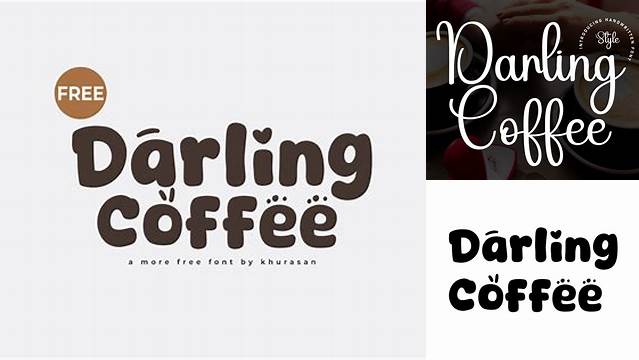
Darling Coffee Font: Free Download For Your Designs
Hey guys! Are you looking to add a touch of warmth and charm to your design projects? Well, you've come to the right place! We're diving deep into the world of the Darling Coffee font, a delightful typeface that can bring a cozy and inviting feel to just about anything. Whether you're designing a logo for a coffee shop, creating eye-catching social media graphics, or even crafting personalized invitations, this font might just be the secret ingredient you've been searching for. So, grab your favorite mug of coffee, get comfy, and let's explore everything this awesome font has to offer!
Darling Coffee Font: What Makes It Special?
The Darling Coffee font is more than just a set of characters; it's a mood, a feeling, a vibe! Its playful curves and slightly imperfect lines give it a handmade, authentic feel that's perfect for projects that need a personal touch. Think about how a handwritten note makes you feel versus a typed email. That's the kind of difference this font can make! It's got that certain je ne sais quoi that elevates designs from ordinary to extraordinary. Plus, the fact that you can find it for free download? Well, that's just the cherry on top!
Using Darling Coffee Font in Your Designs
So, you've downloaded the Darling Coffee font, now what? The fun part – putting it to use! This font is incredibly versatile, but it shines especially in projects where you want to evoke a sense of warmth, comfort, and authenticity. Imagine using it for the logo of a local bakery, the menu of a cozy café, or even the branding of a handmade crafts business. The possibilities are endless! But remember, even the most beautiful font needs to be used thoughtfully. Pay attention to things like font size, spacing, and color to make sure your message is clear and impactful.
Darling Coffee Font Alternatives
While the Darling Coffee font is amazing, it's always good to have options! If you're looking for similar fonts with a slightly different vibe, there are tons of great alternatives out there. Think about fonts with a handwritten feel, or those with a slightly vintage or rustic aesthetic. Some popular options include Amatic SC, Permanent Marker, and Coming Soon. Experiment with different fonts to see what works best for your project. After all, design is all about exploration and discovery!
Darling Coffee Font and Web Design
The Darling Coffee font isn't just for print materials; it can also add a unique touch to your website. Using custom fonts on your website can help you create a distinctive brand identity and make your site more visually appealing. However, it's essential to use web fonts correctly to avoid slowing down your site's loading speed. Consider using a web font service like Google Fonts or Adobe Fonts, which optimize fonts for web use. Also, make sure to test your website on different devices and browsers to ensure the font renders correctly.
Darling Coffee Font and Branding
Your brand is more than just a logo; it's the overall feeling and experience that customers have when they interact with your business. The Darling Coffee font can be a powerful tool for building a brand that feels warm, inviting, and authentic. Think about brands like local coffee shops, bakeries, and handmade crafts businesses. These types of brands often benefit from a font that has a personal, handcrafted feel. By using the Darling Coffee font consistently across your branding materials, you can create a cohesive and memorable brand identity.
Darling Coffee Font and Social Media Graphics
Social media is a visual medium, so it's essential to use eye-catching graphics that grab people's attention. The Darling Coffee font can help you create social media graphics that stand out from the crowd. Use it for headlines, captions, and even watermarks on your images. Just make sure to use it sparingly and pair it with other fonts that complement its style. You want your social media graphics to be visually appealing and easy to read.
Darling Coffee Font and Logo Design
A logo is the cornerstone of your brand, so it's essential to choose a font that accurately reflects your brand's personality. The Darling Coffee font can be a great choice for logos that need a warm, inviting, and handcrafted feel. However, it's not always the best choice for every type of logo. For example, it might not be suitable for a corporate or tech company that wants to project a more modern and professional image. Consider your target audience and the message you want to convey when choosing a font for your logo.